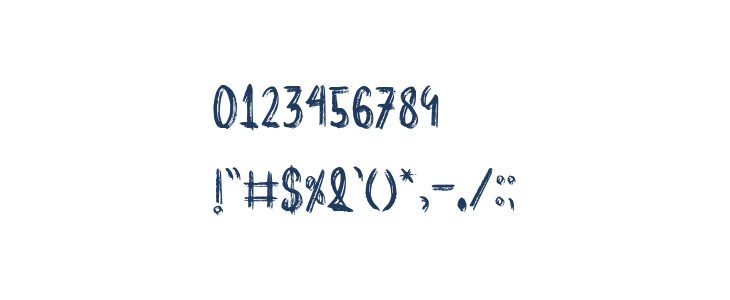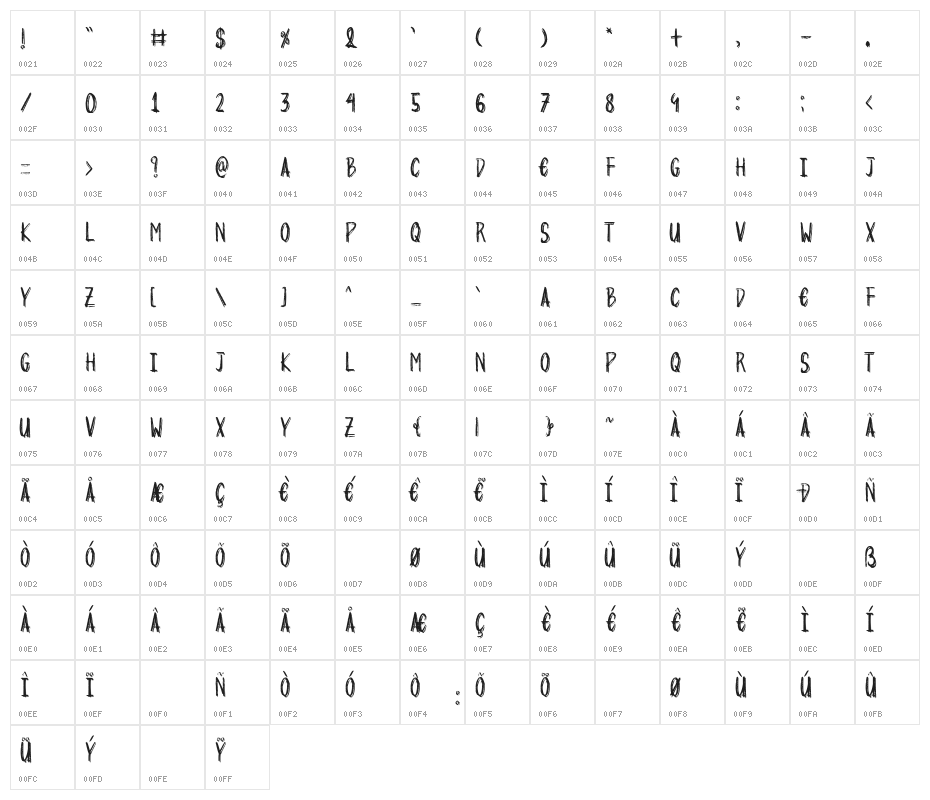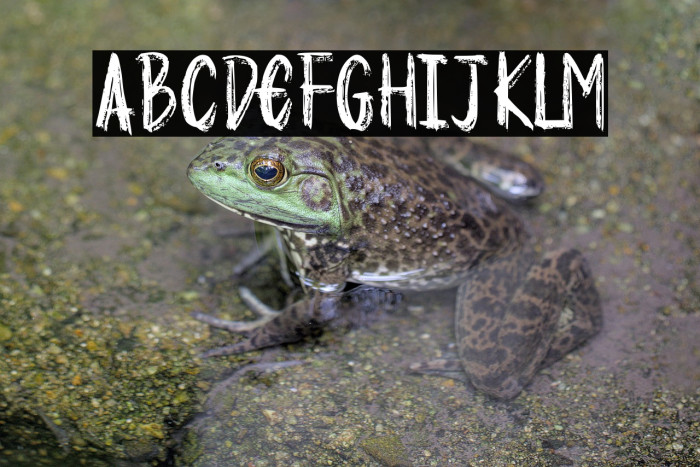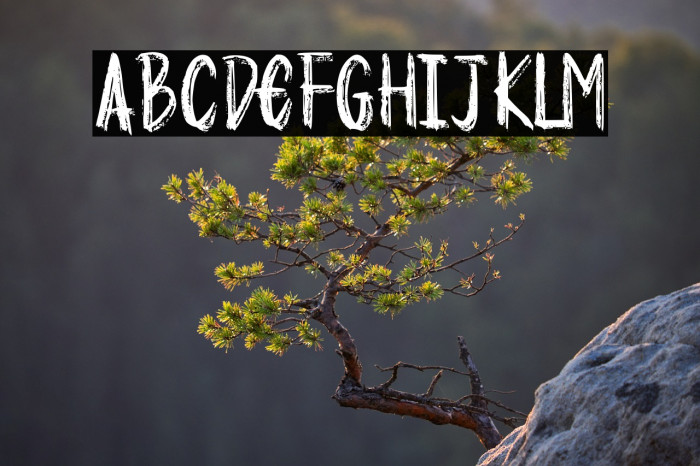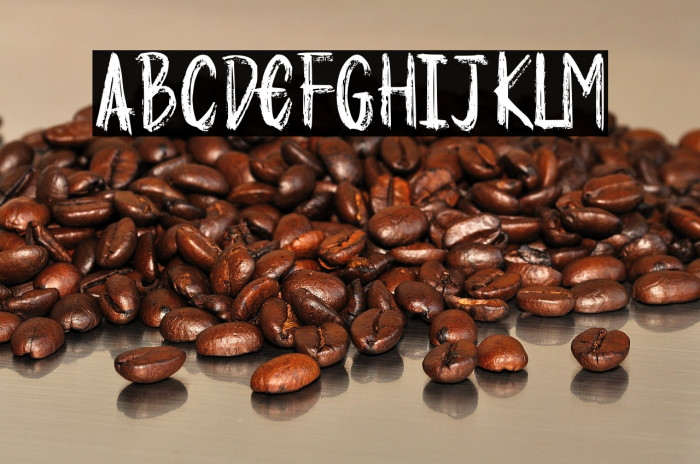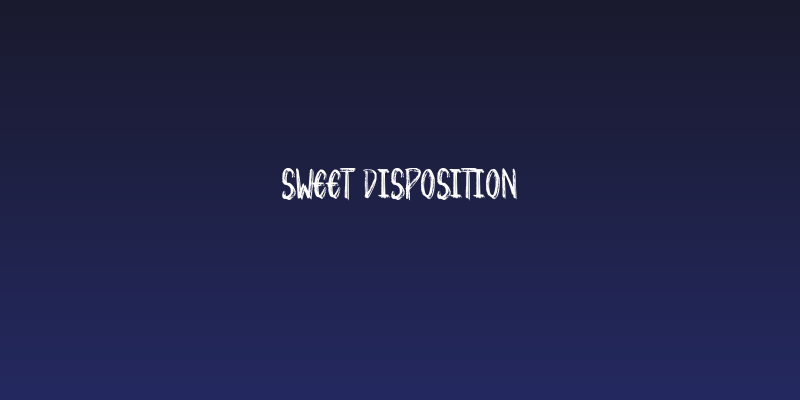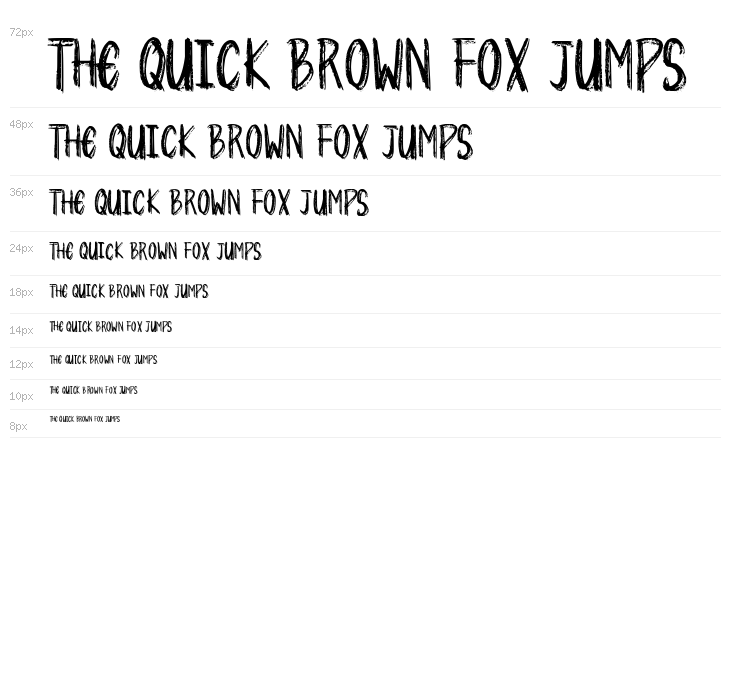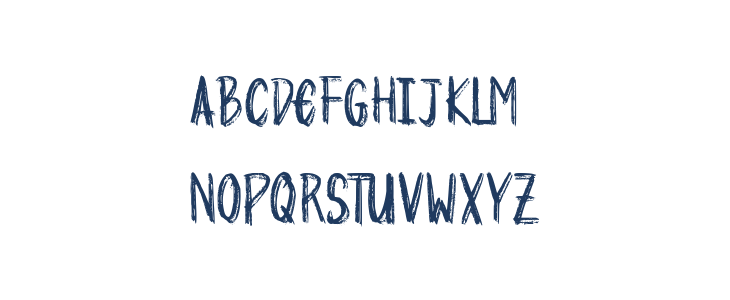
Sweet Disposition Font
Sweet Disposition Description
This font features a bold and expressive style, characterized by its brush-like strokes and rough edges. The letters have a hand-drawn appearance, giving them a dynamic and energetic feel. The uppercase and lowercase letters maintain a consistent style, with a slightly irregular baseline that adds to the casual and artistic vibe. The numbers and special characters follow the same design principles, ensuring a cohesive look across all glyphs. This font is ideal for projects that require a personal touch or a creative flair, such as posters, invitations, or branding materials.
| Proposed Projects | Ideal for creative projects like posters, invitations, branding, and artistic designs. |